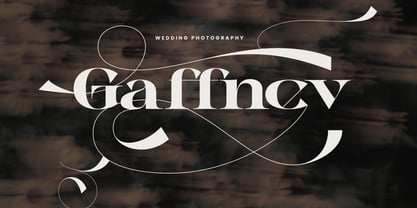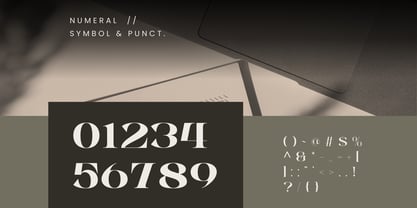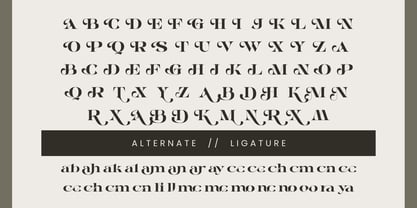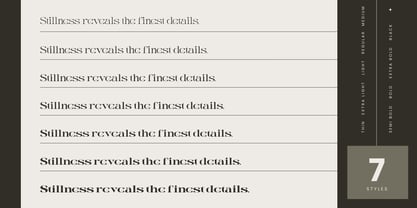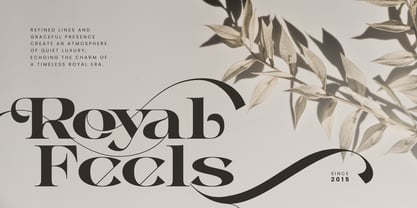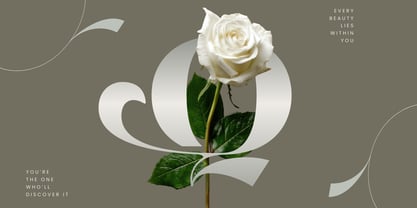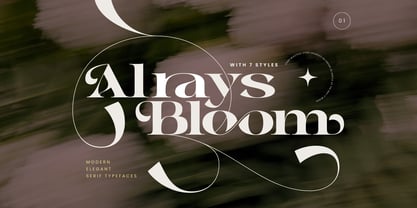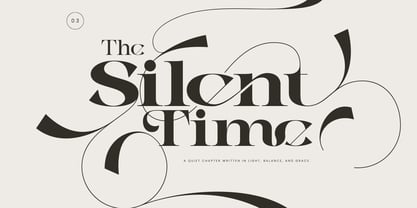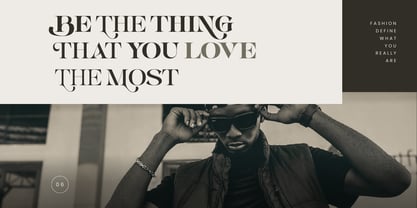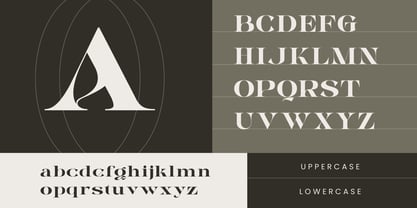
Alrays Bloom
by Nirmana Visual
The Alrays Bloom Font Family was designed by Sigit Dwipa and published by Nirmana Visual. Alrays Bloom contains 7 styles and family package options. More about this family
Alrays Bloom is a luxury, elegant font designed to elevate wedding stationery and refined logo branding. With graceful curves, delicate strokes, and a timeless romantic feel, it brings sophistication and charm to every design. Perfect for invitations, monograms, and premium brand identities, Alrays Bloom blends modern elegance with classic beauty, creating a soft yet distinctive presence that captures love, celebration, and luxury in every letter.
Designers: Sigit Dwipa
Foundry: Nirmana Visual